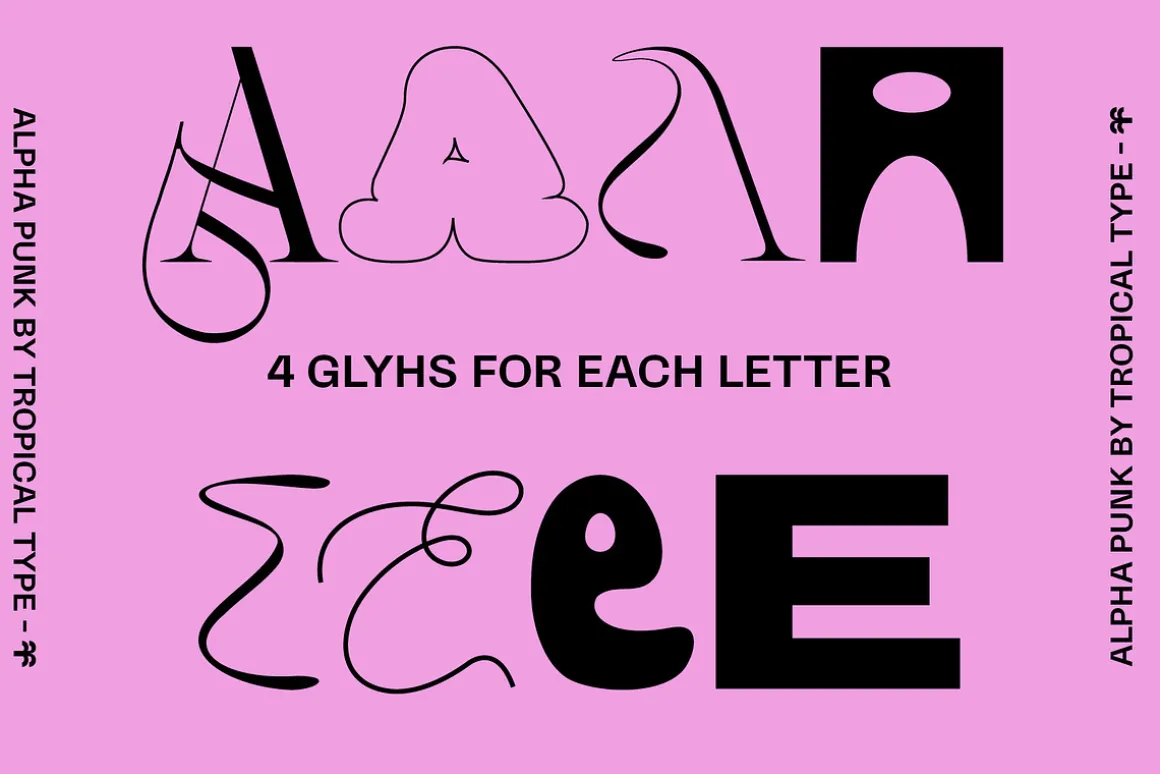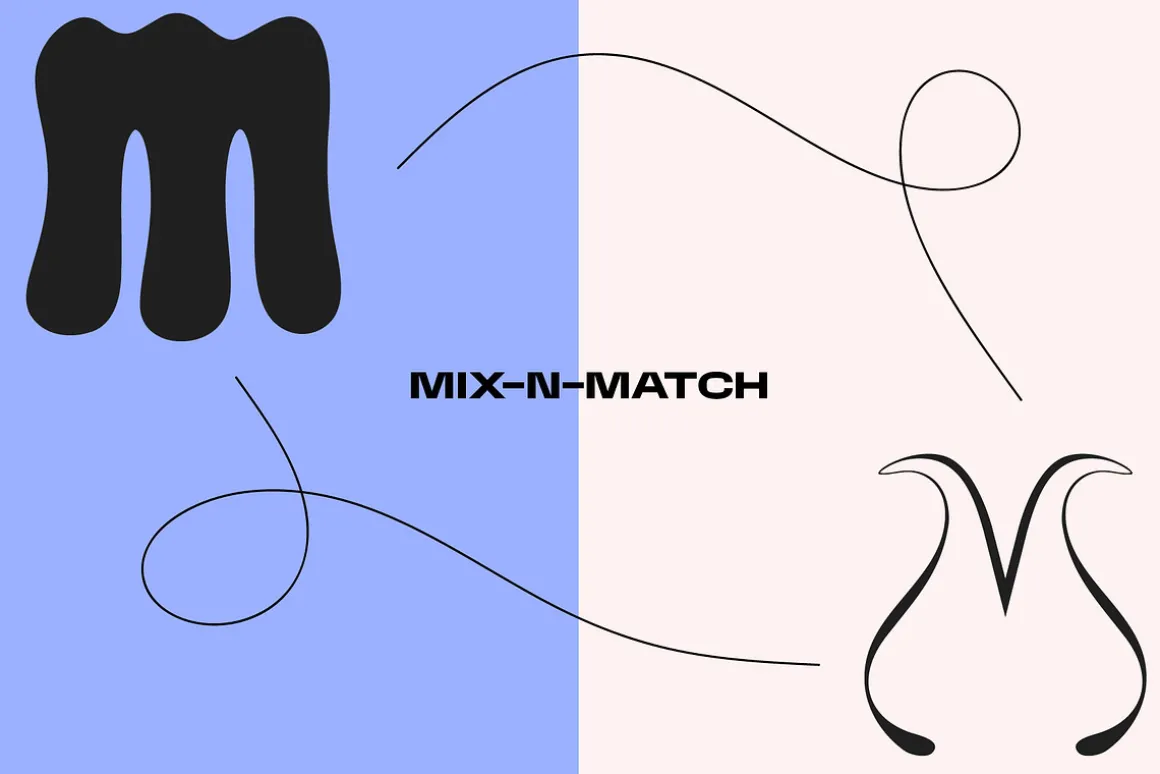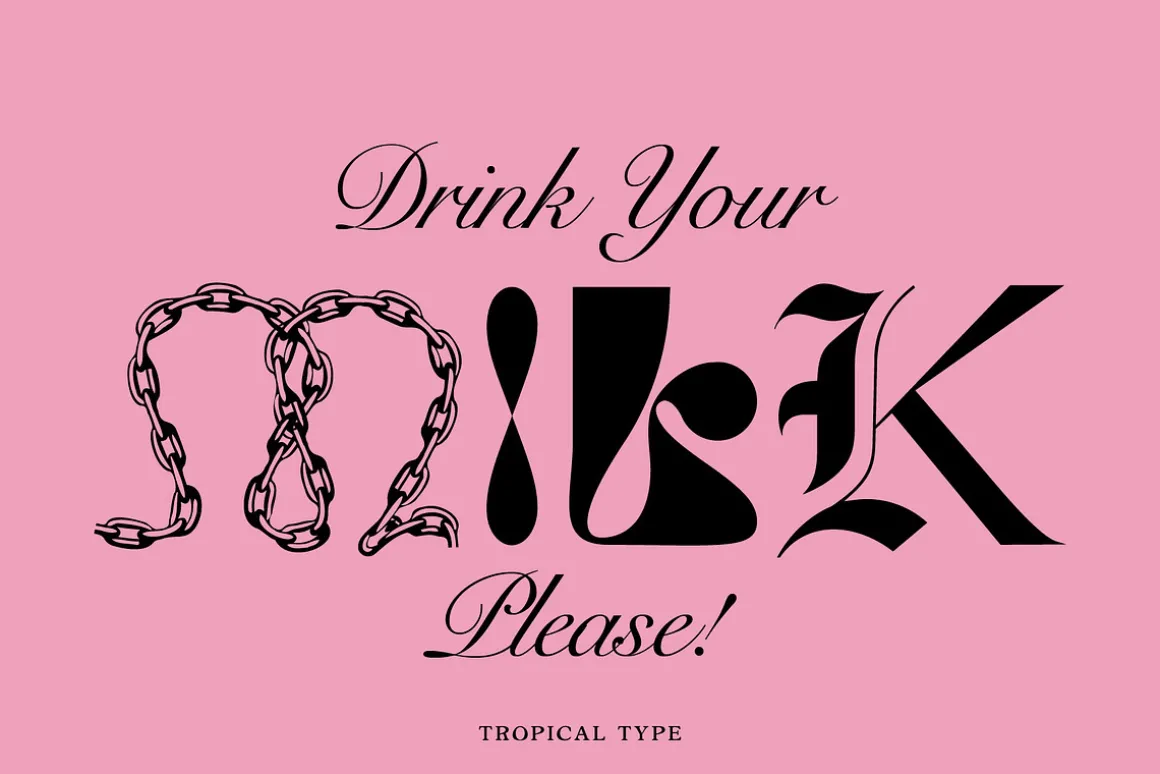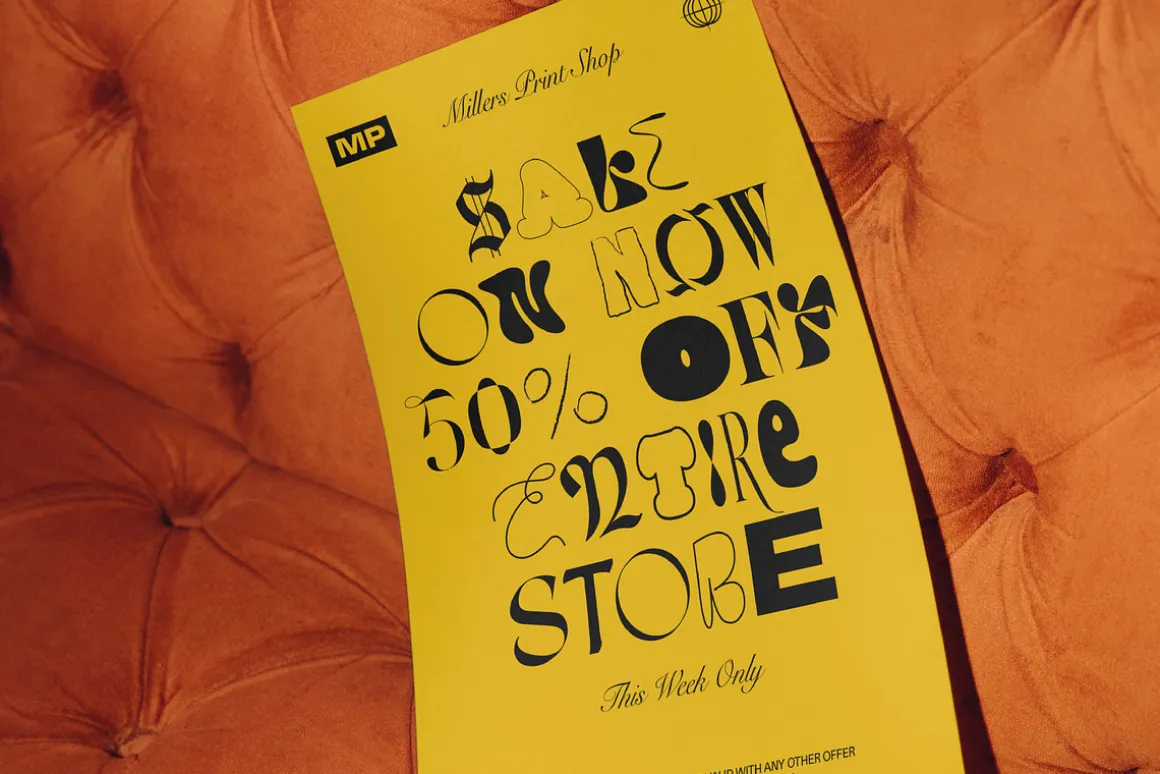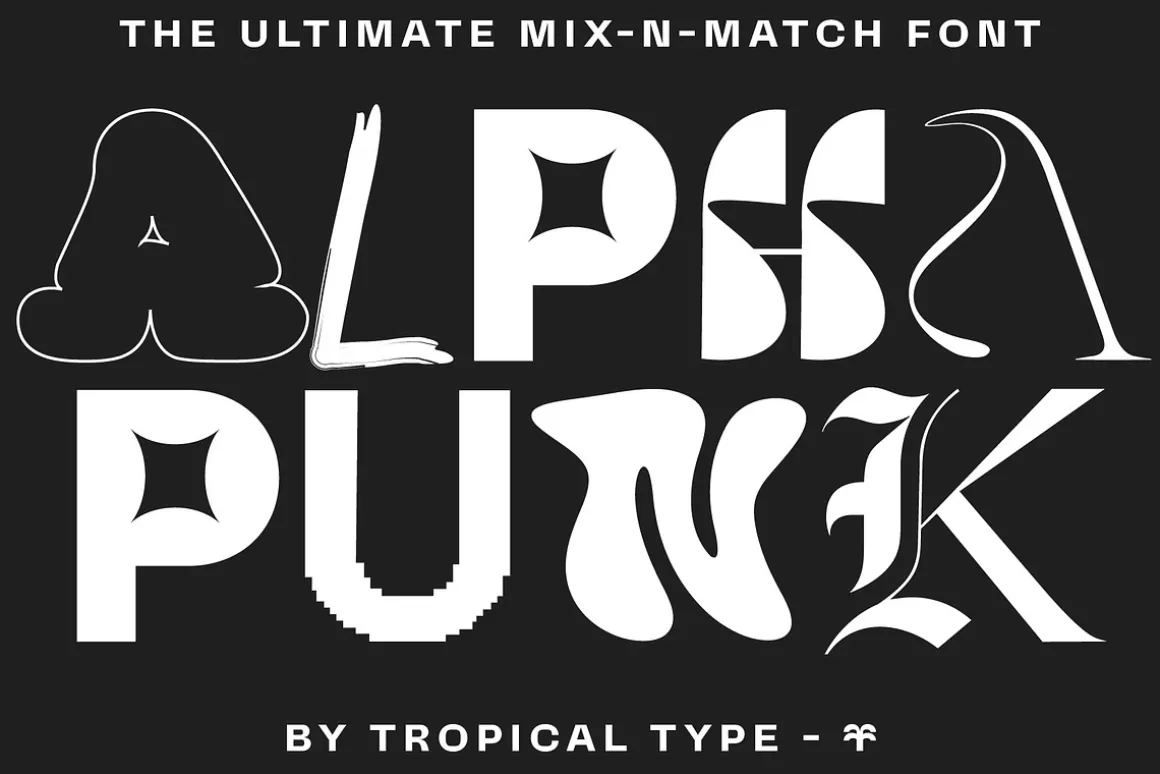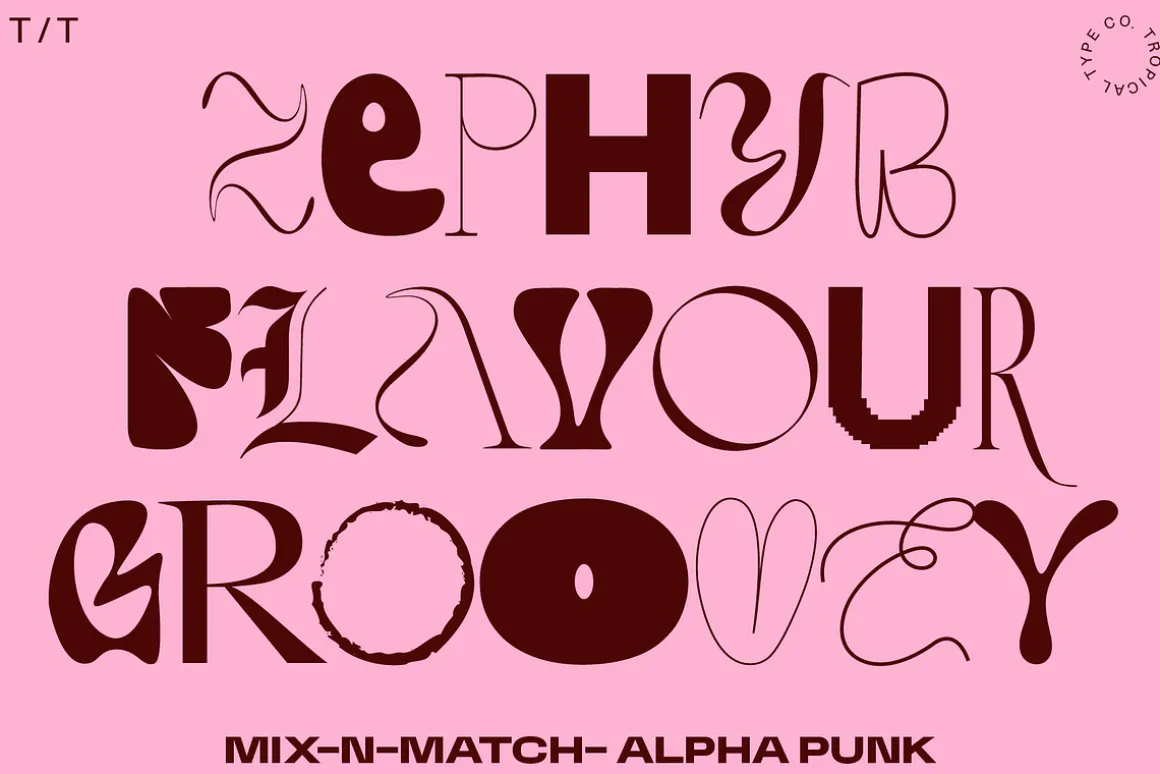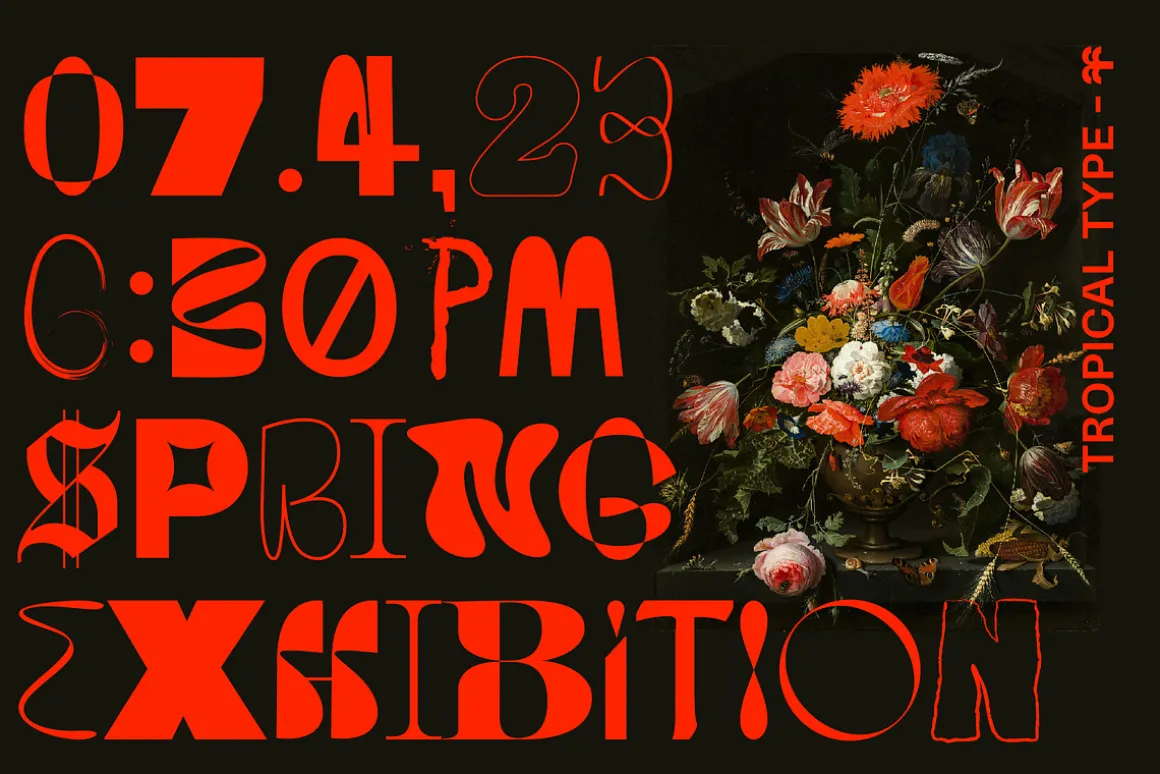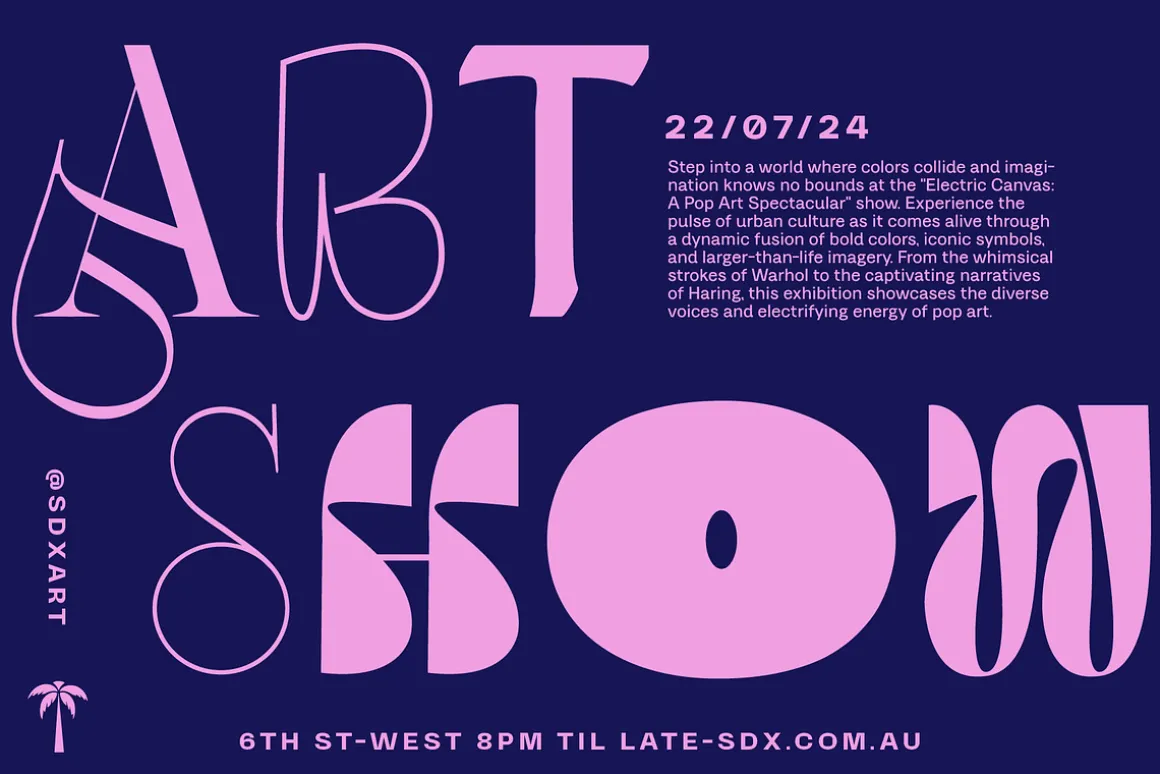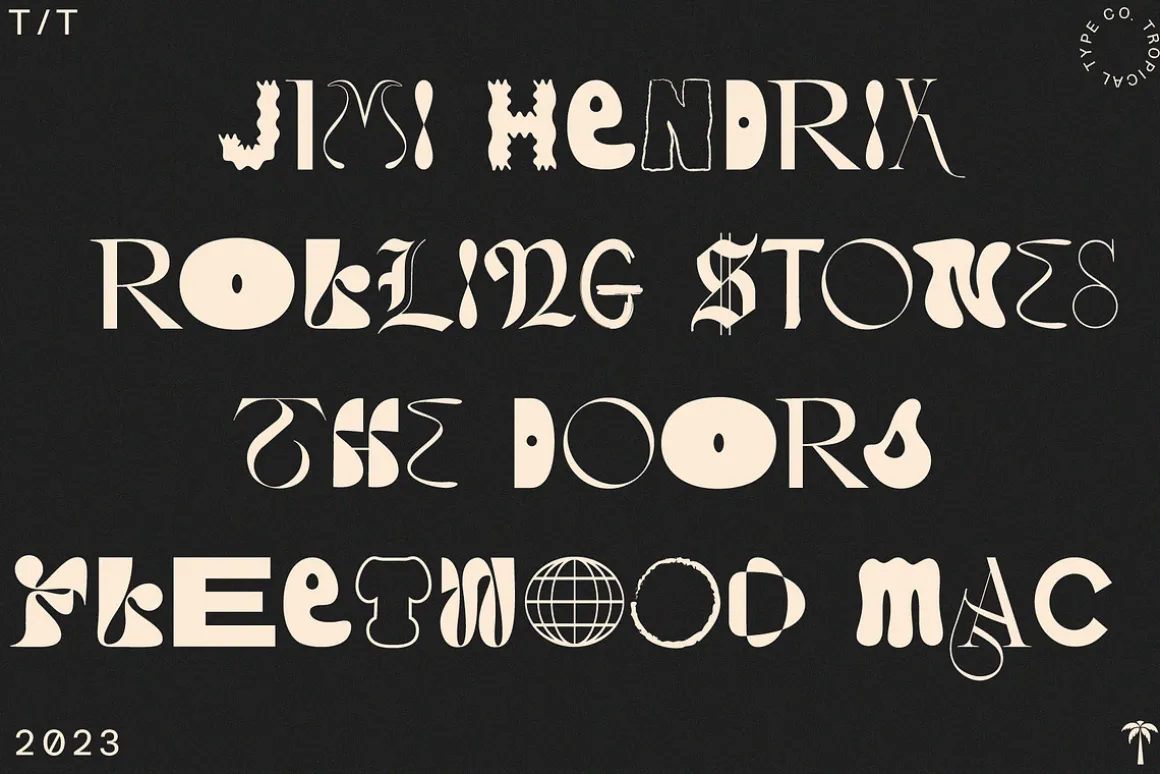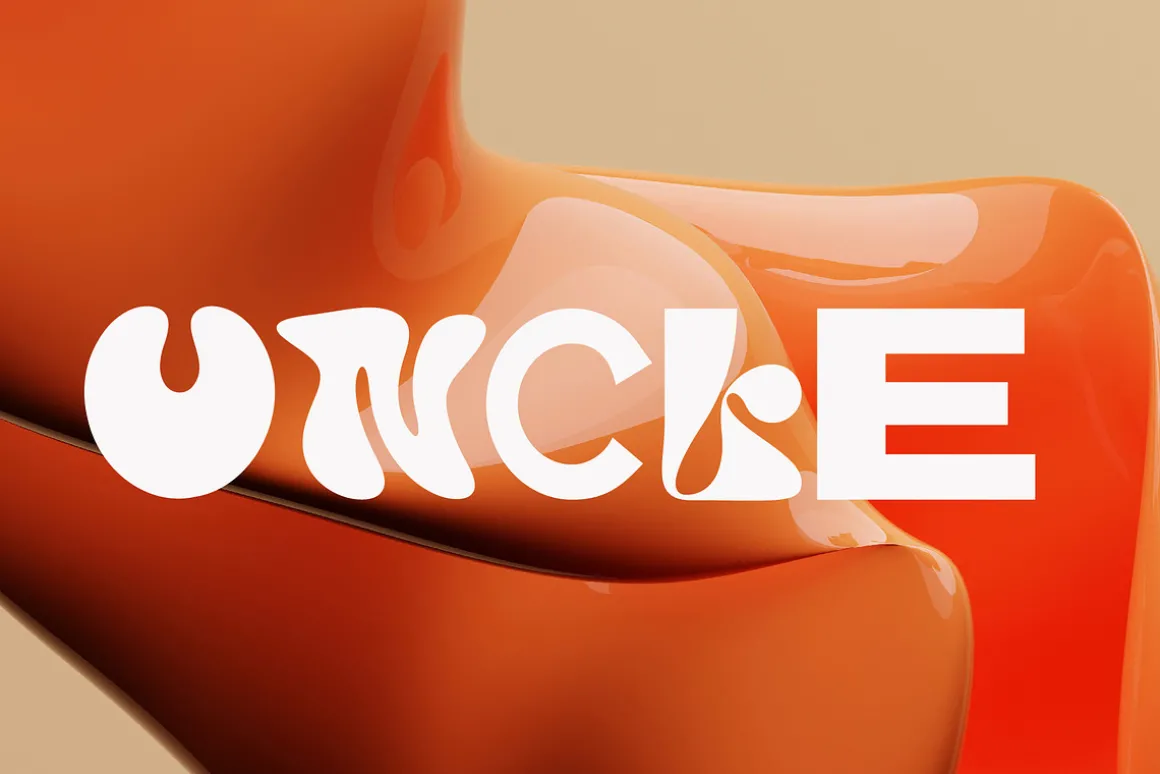
Alpha Punk is a Mix and Match font. This means every letter has 4 vastly different options to choose from. This creates wild typography with experimental letters. Weird is so hot right now so get creating!PLEASE READ THE INSTRUCTIONS PDF ON DOWNLOAD TO GET THE MOST OUT OF THIS FONT!
UPPERCASE, UPPERCASE ALTERNATES, LOWERCASE, LOWERCASE ALTERNATES.NUMBERS, NUMBER ALTERNATES.
-Non English glyphs included:
Ą Á  À Ä Å Ã Æ Ć Ç Ę É Ê È Ë Í Î Ì Ï Ł Ń Ñ Ó Ô Ò Ö Õ Ø Œ Ś Š Ú Û Ù Ü Ý Ÿ Ź Ż